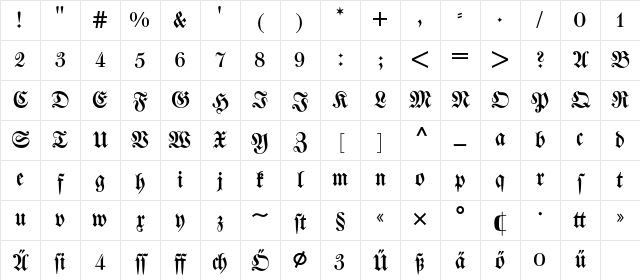
Complete Walbaum Fraktur BQ Regular glyph index. Displaying only characters natively supported by Walbaum Fraktur BQ Regular font.
Walbaum Fraktur BQ draws on the rich tradition of blackletter calligraphy, with dense, angular strokes that evoke medieval manuscripts and old-world craftsmanship.